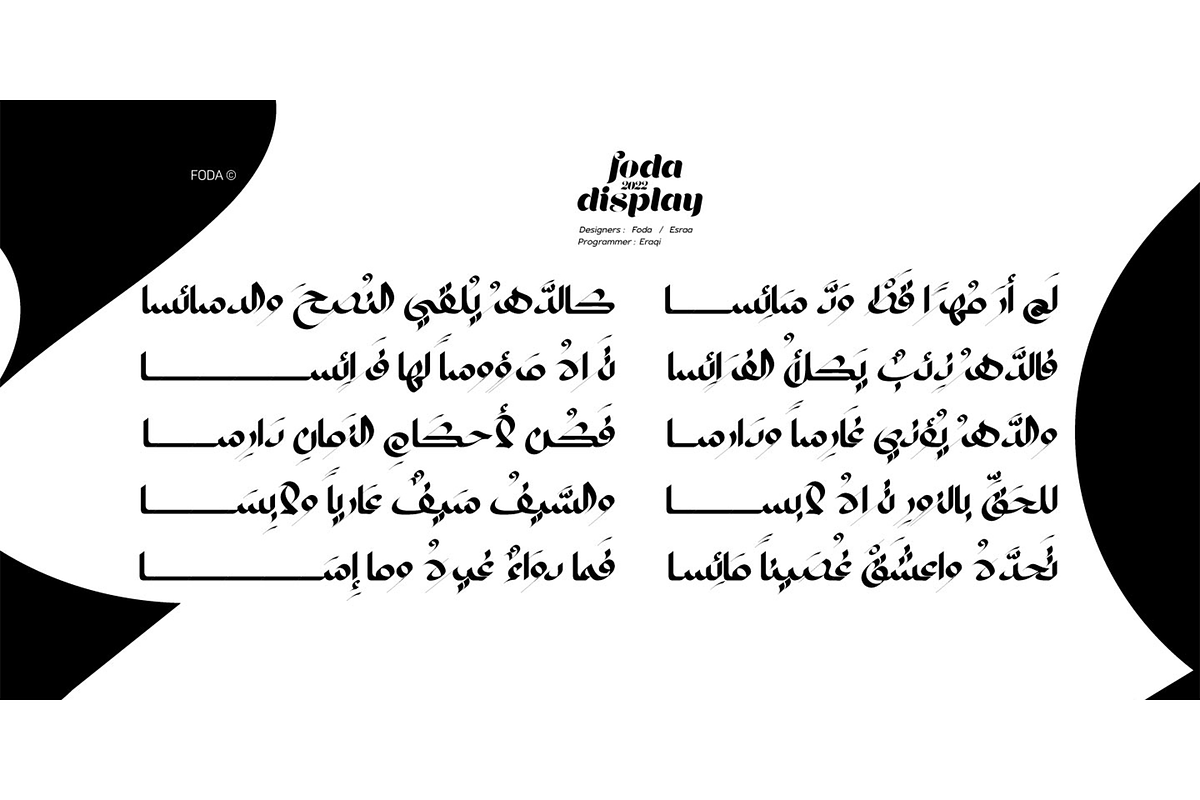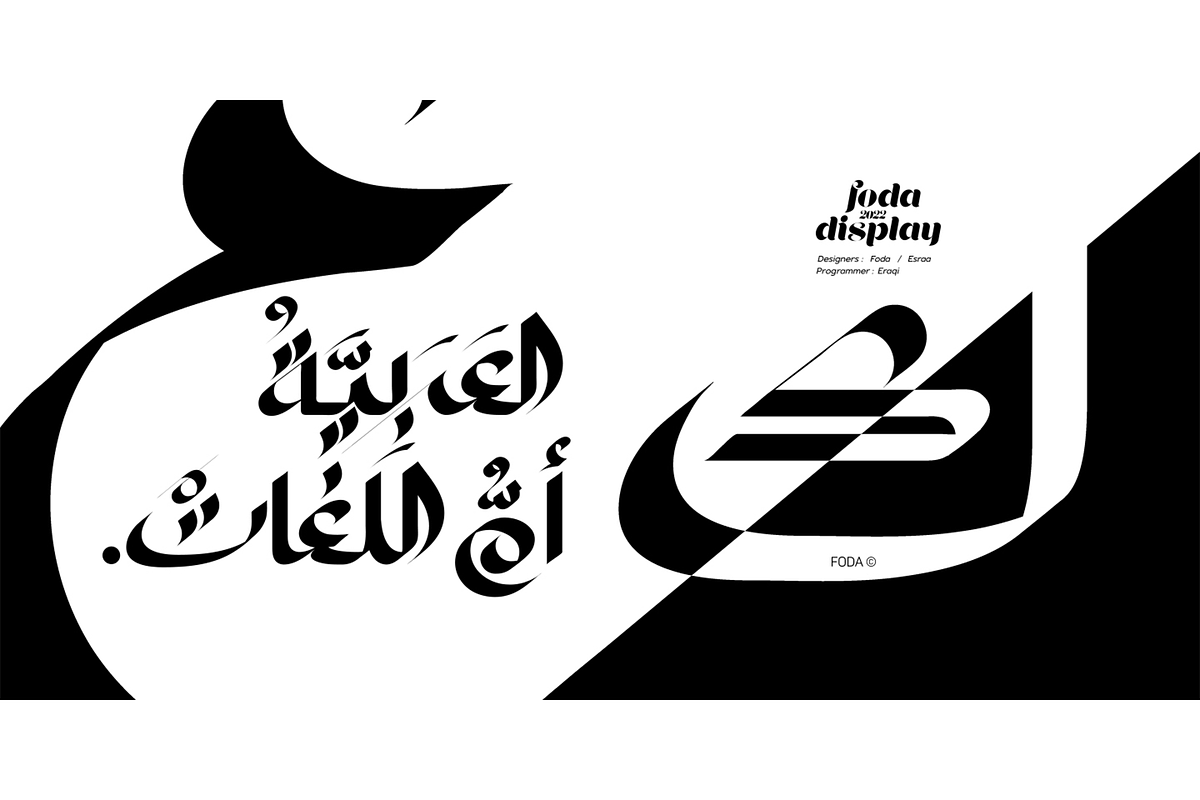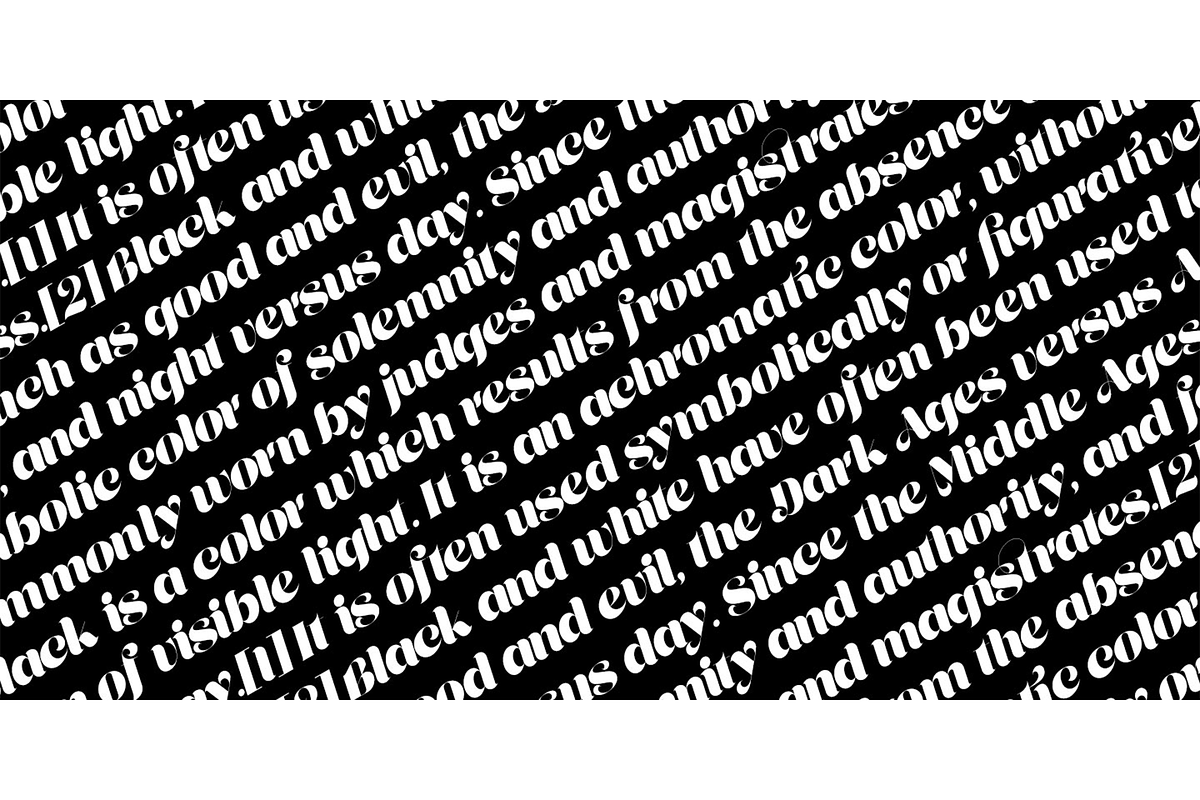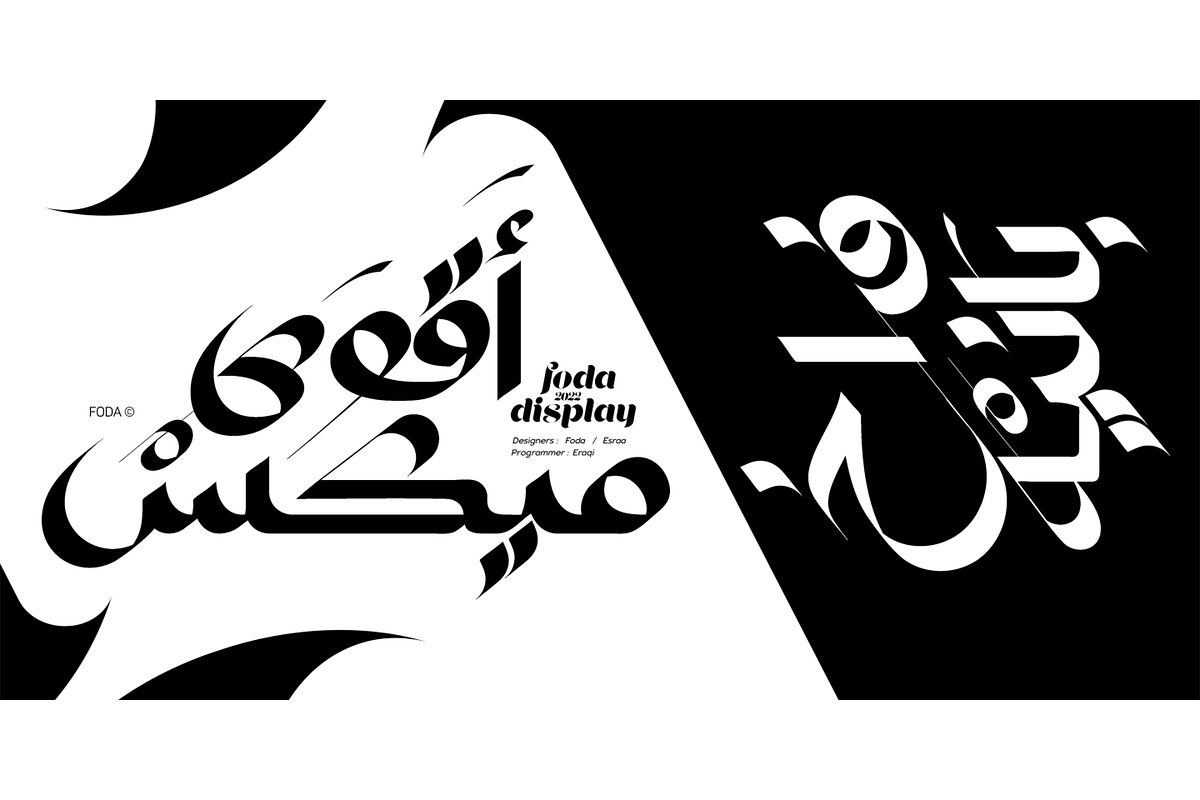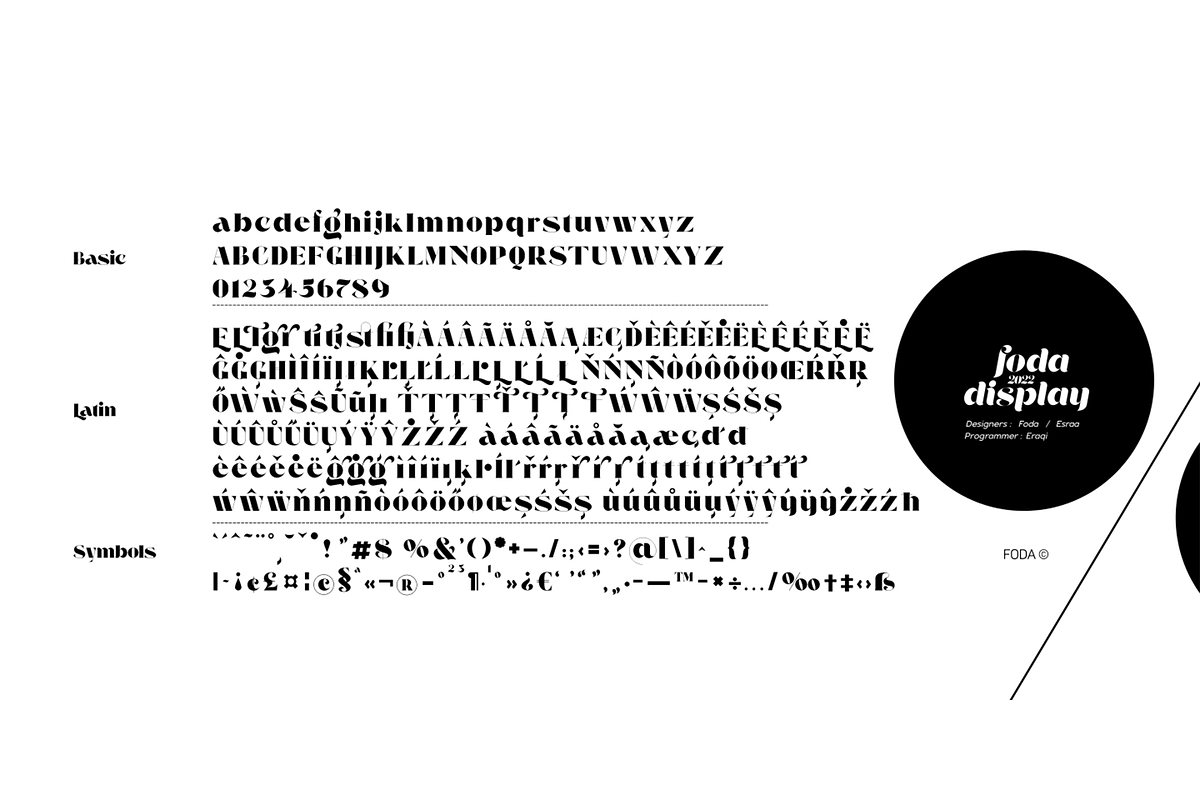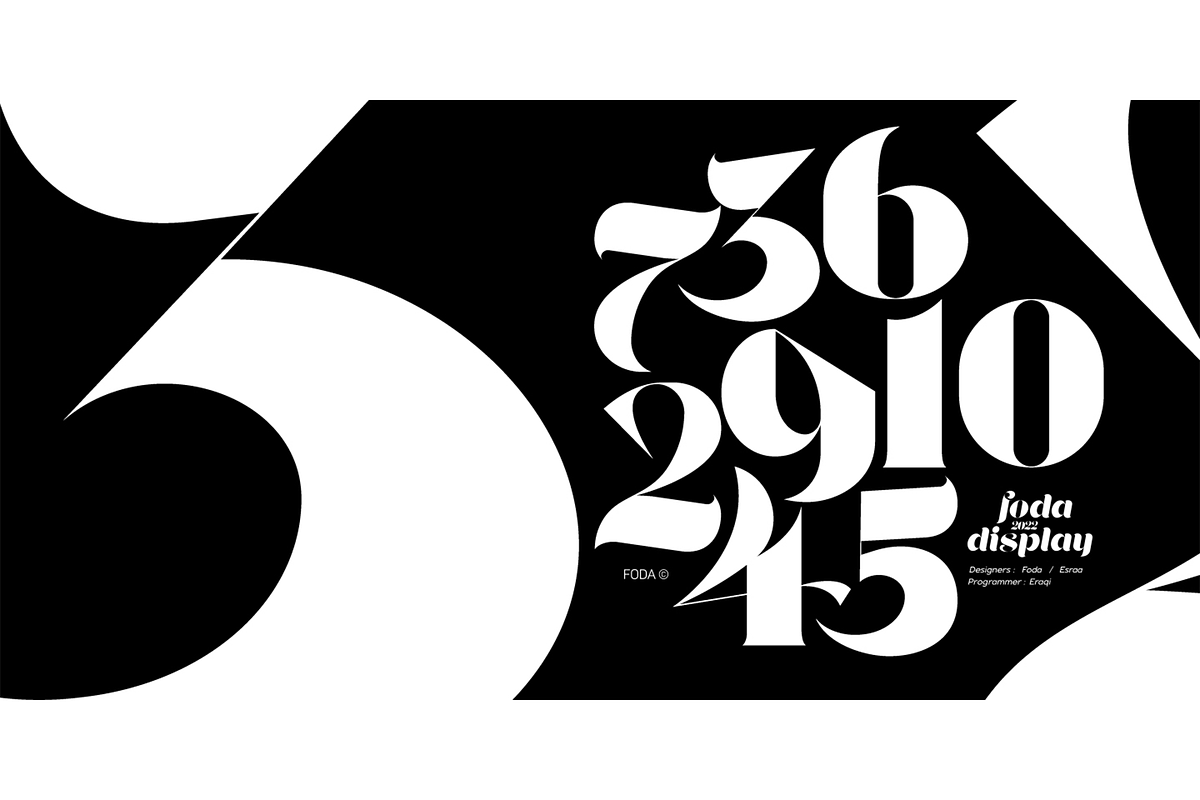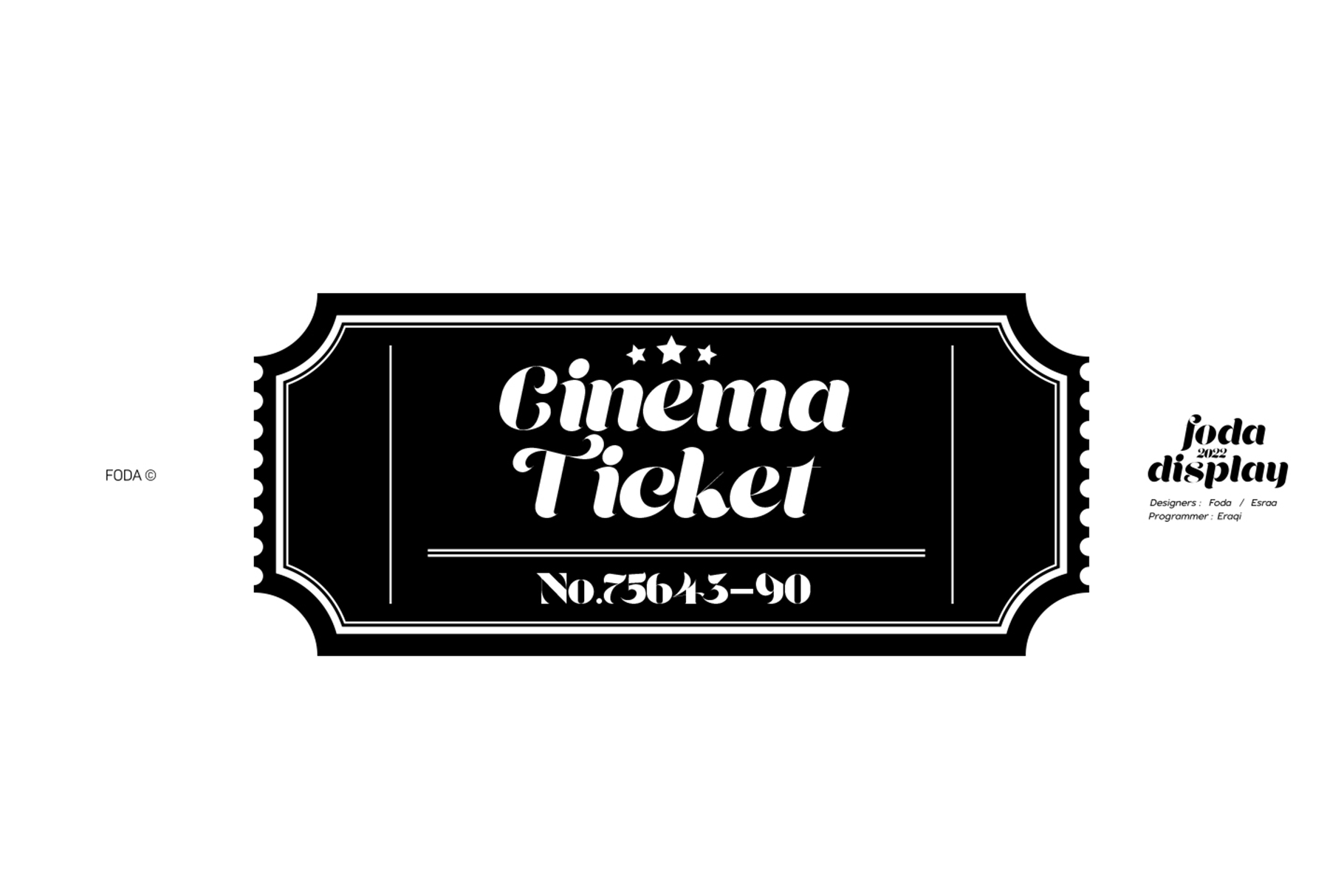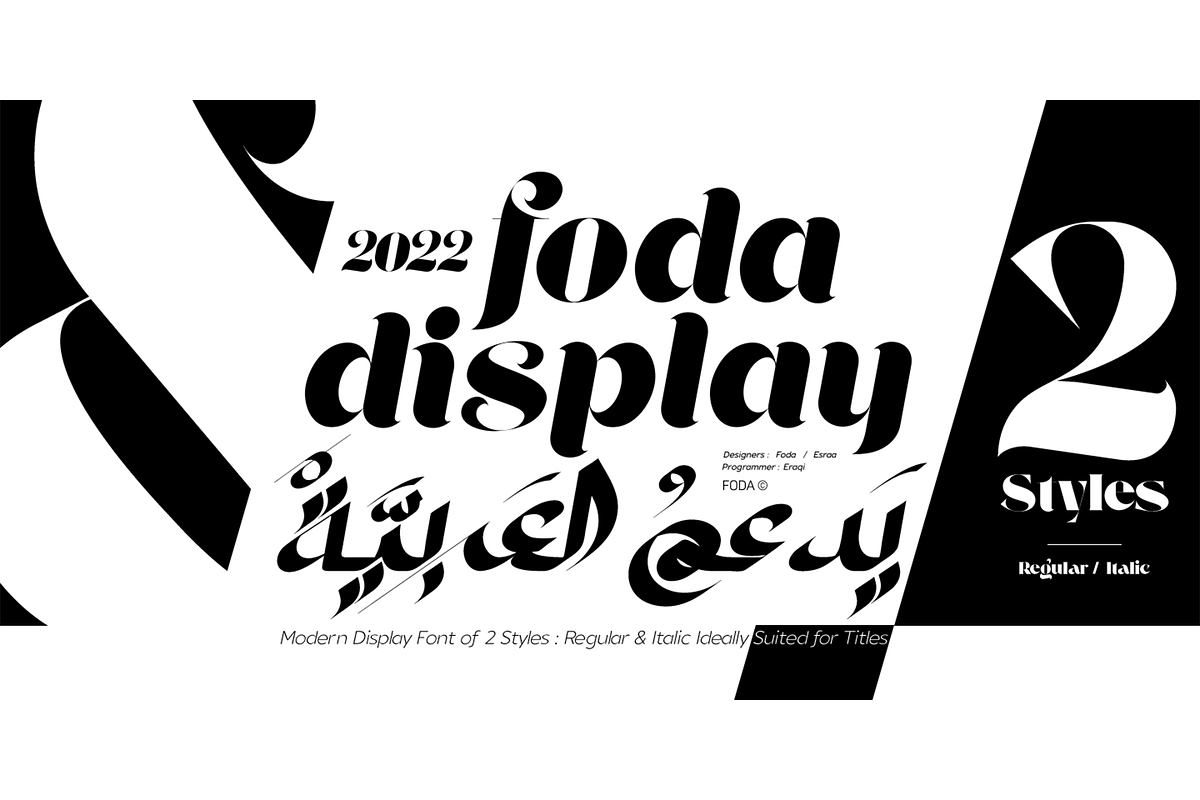
Foda Display Font
Foda Display typeface for Latin and Arabic is a modern calligraphy and one of FoDa foundry new creations, that is suited for branding, logos, packaging, advertising, social media designs, posters, wedding invitations and more...
Foda Display comes in two weights : Regular and italic with a basic character set of more than 750 glyphs that cover many OTF features like:
-multilingual support for many Latin-based scripts and Arabic.
-Alternates
-Ligatures
-Kerning
-currency support
and many other OpenType features.